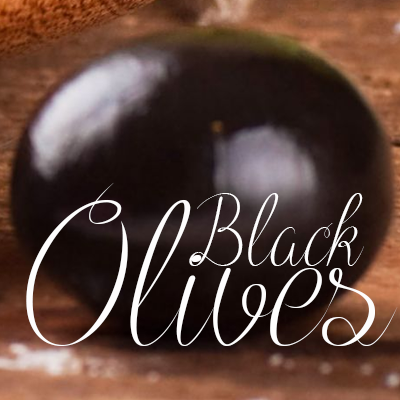
Preview and download Black Olives Font. Created by Runes & Fonts in Script Calligraphy styles with Demo license.
BLACK OLIVES is a script calligraphy font experiment. Please note that these are stylized fonts and may not look good in every contect , words or sizes. All feedback and help would be greatly appreciated for future development on this font. This font free for PERSONAL use only and it's a demo with characters a-z, A-Z and numbers 0-9.For any commercial use (anything you make money from), you must send a paypal donation to myhandwritings@gmail.com. Please contact me via myhandwritings@gmail.com also about the following: - Full version with language extensions (or visit : http://www.myfonts.com/fonts/myhandwritings/black-olives/) - Discovering kerning problems while using - Or any other question or feedback. You MAY NOT sell my fonts or claim them as your own. You MAY NOT edit or rename my fonts. You MAY redistribute my fonts if: 1. You credit me (Roland Huse). 2. Keep the READ ME file intact within the zip folder. 3. Provide a link back to my website (www.rolandhuse.com). More... |